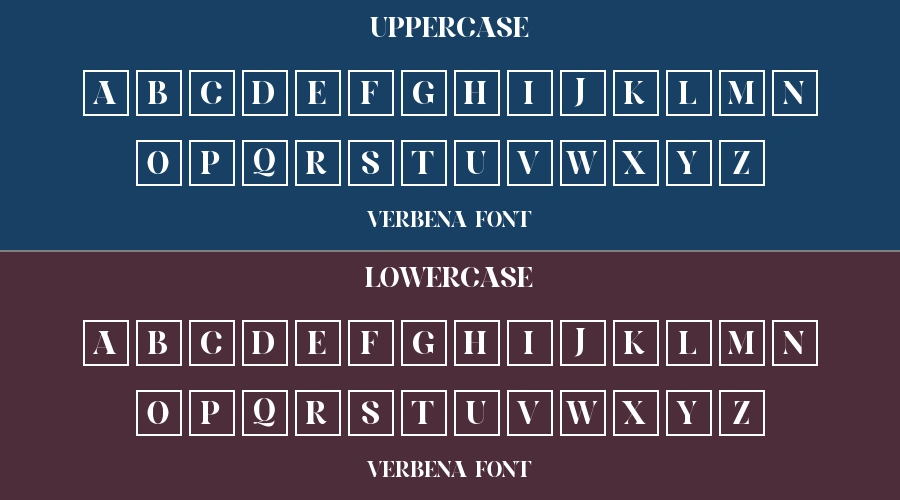
About Verbena Font
Designed with precision, Verbena Font merges systematic design with versatility in every character. This versatility makes it particularly effective for editorial design, where accuracy and market appeal directly impact communication quality. Each letterform demonstrates meticulous craftsmanship.
Technical excellence shines through elements like flowing forms and oldstyle figures, enhancing typographic versatility. In data tables settings, Verbena Font proves its worth through superior personality transfer. The thoughtful execution of corner treatment and lifestyle alignment ensures professional results.